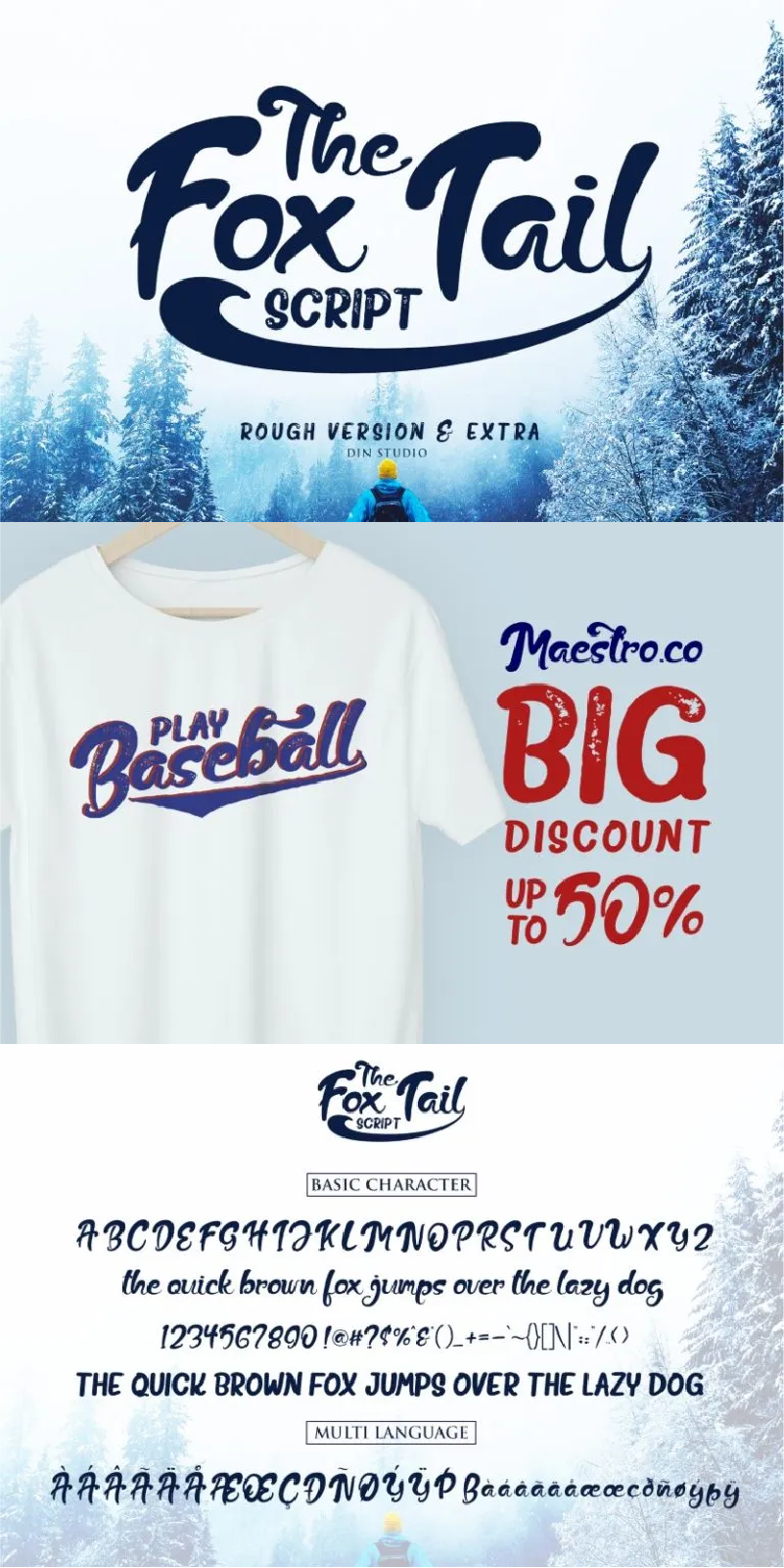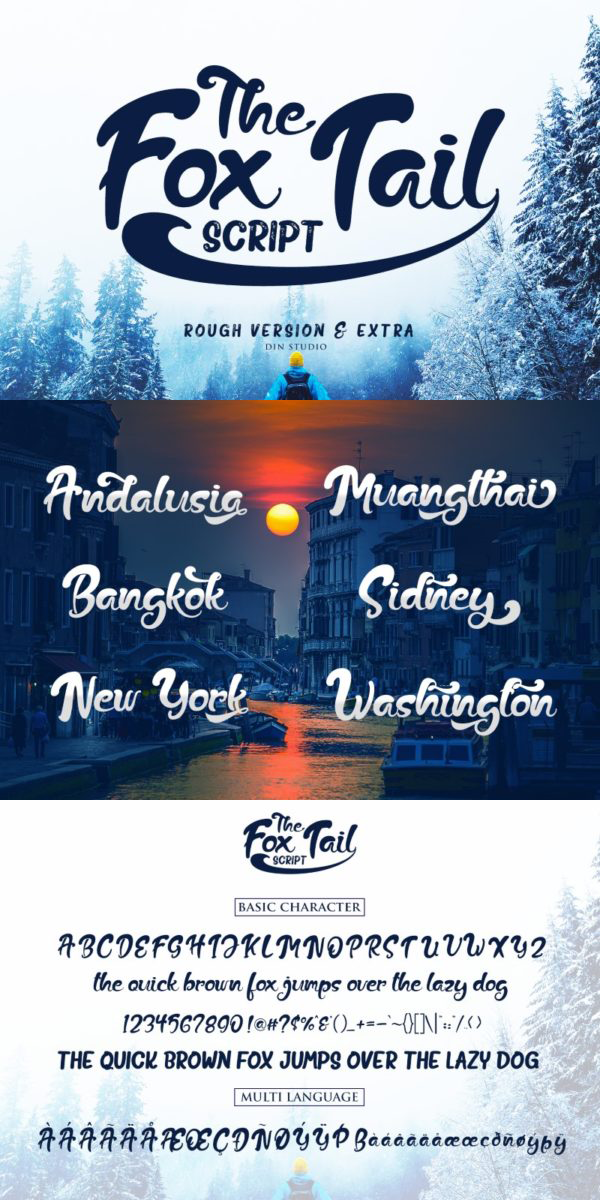
The Fox Tail Font
About The Fox Tail
The Fox Tail – Font Duo and Extras. The Fox Tail – Font Duo and Extras is a font that is inspired by the retro style and fox’s tail. This font has a unique and interesting shape.
The font is suitable for logos, branding projects, product packaging, quotes, greeting cards, and others. The Font Duo and Extras comes with a retro and unique styles. It contains a full set of lowercase and uppercase letters, a large range of punctuations, numerals, multilingual supports and many cute alternates. See the previews above to get some inspiration on how you can use them.
-Stylistic Alternates Character Set A-Z
-Numerals & Punctuations (OpenType Standard) Accents -(Multilingual characters)